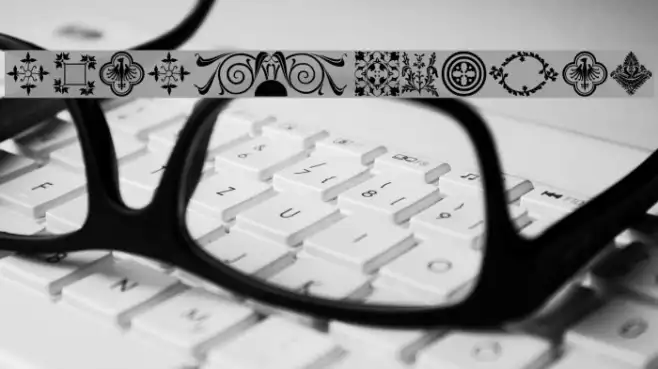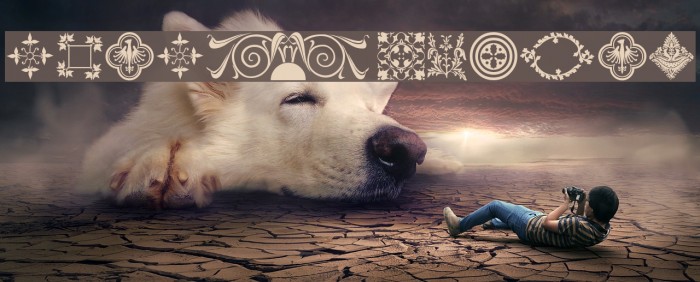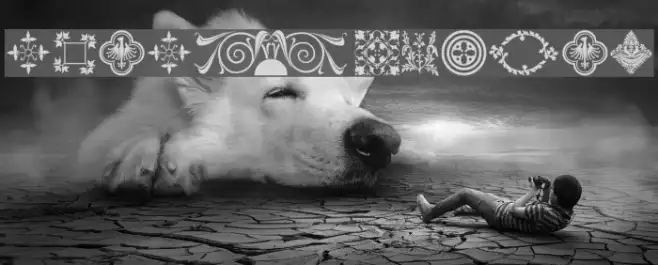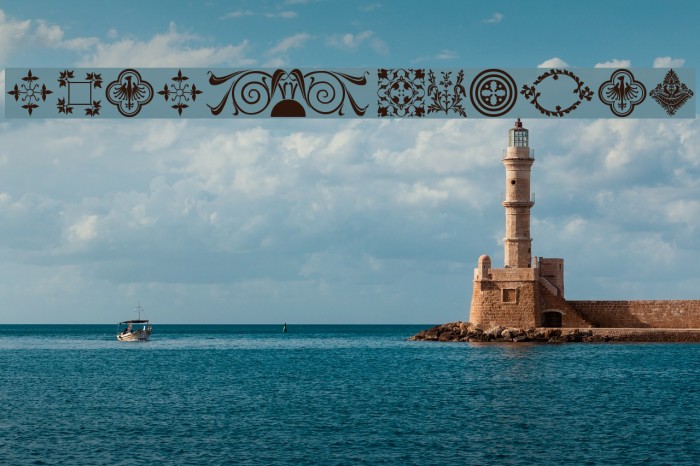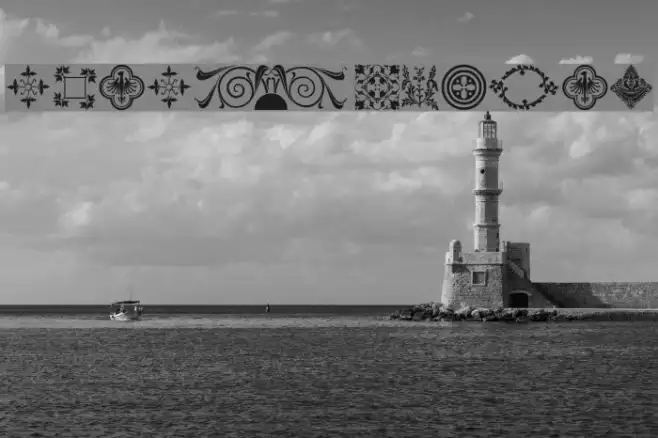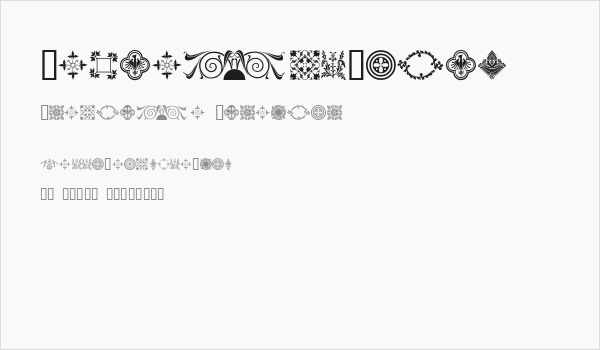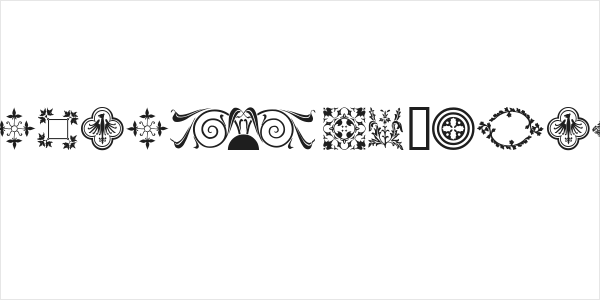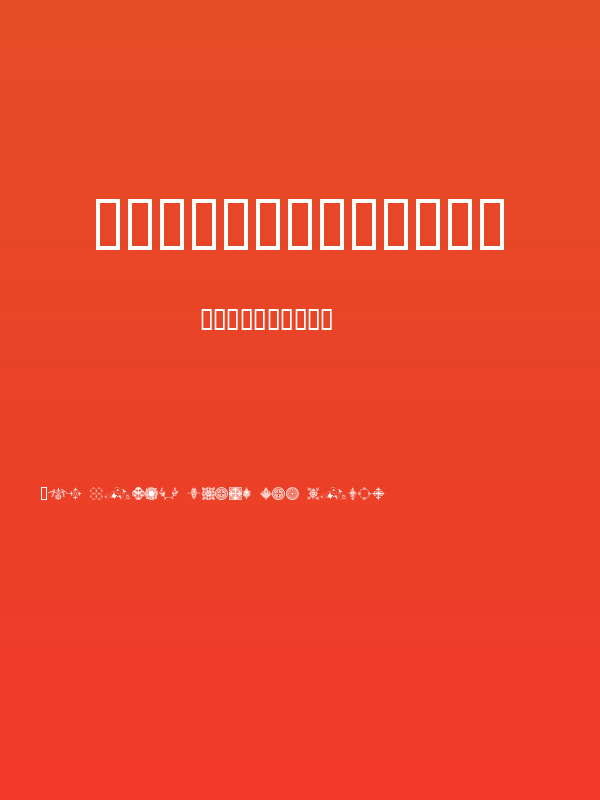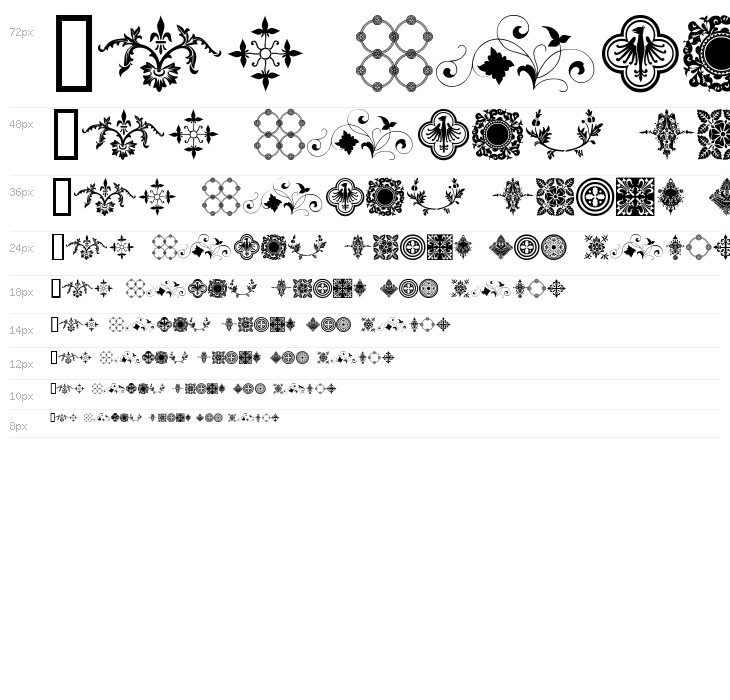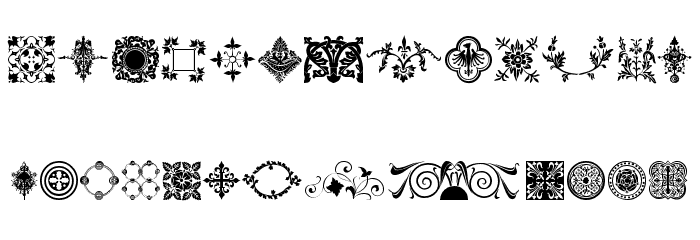
MedievalMotif Font
MedievalMotif Description
A decorative set of intricate medieval-inspired motifs and ornaments, featuring floral, geometric, and heraldic elements with high detail and symmetrical designs.
| Overall Style | Vintage, Decorative, Medieval |
| Use Case | Borders, embellishments, graphic accents, thematic dividers. |
| Proposed Projects | Invitations, certificates, book covers, decorative borders, branding for historical or fantasy themes. |